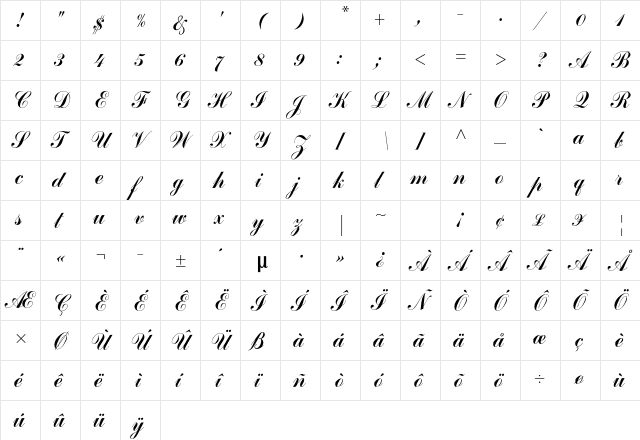
Commercial Script Std Regular
Design Context for Commercial Script Std Typeface
Commercial Script Std brings a calligraphic fluidity to the page — its connecting strokes and expressive curves give it an unmistakably human quality.
Font Pairing: Combine Commercial Script Std with a simple geometric sans for maximum contrast — the tension between flowing curves and clean structure is a classic typographic pairing.
Pro Tip: Use Commercial Script Std for short runs of text — names, titles, or taglines. Extended body copy in script faces tires the eye quickly.